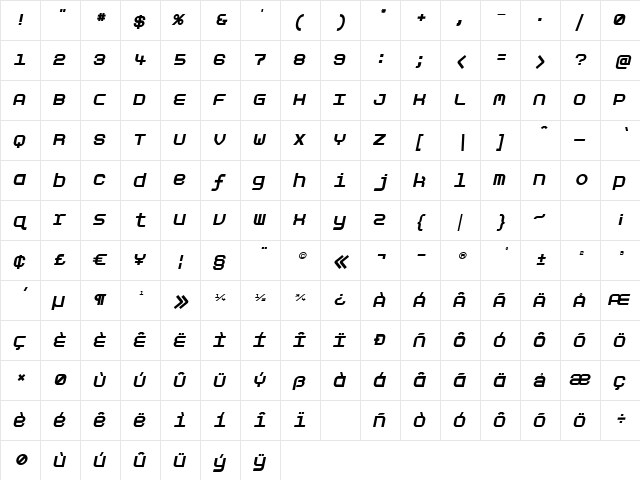
AspirinRefillCollapsed Regular Font Preview
AspirinRefillCollapsed Regular
Design Context for AspirinRefillCollapsed Typeface
AspirinRefillCollapsed offers clean, dependable letterforms without strong stylistic allegiance, making it a practical choice for designers who need flexibility.